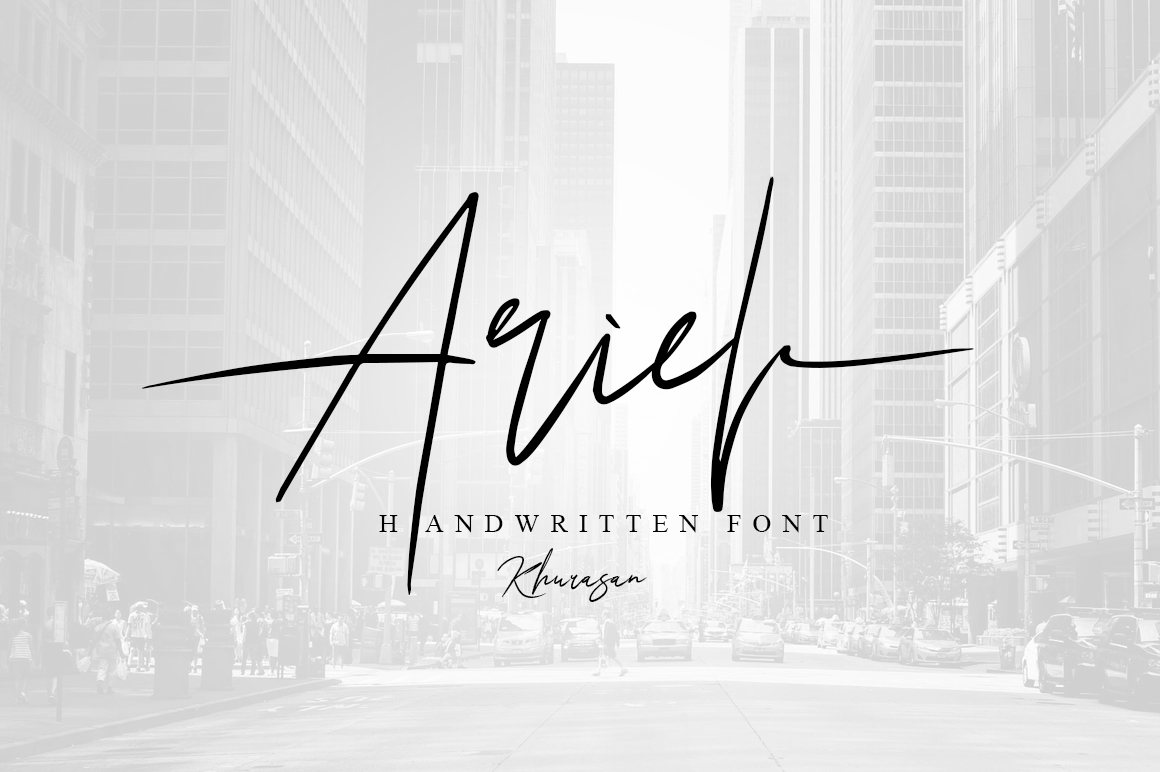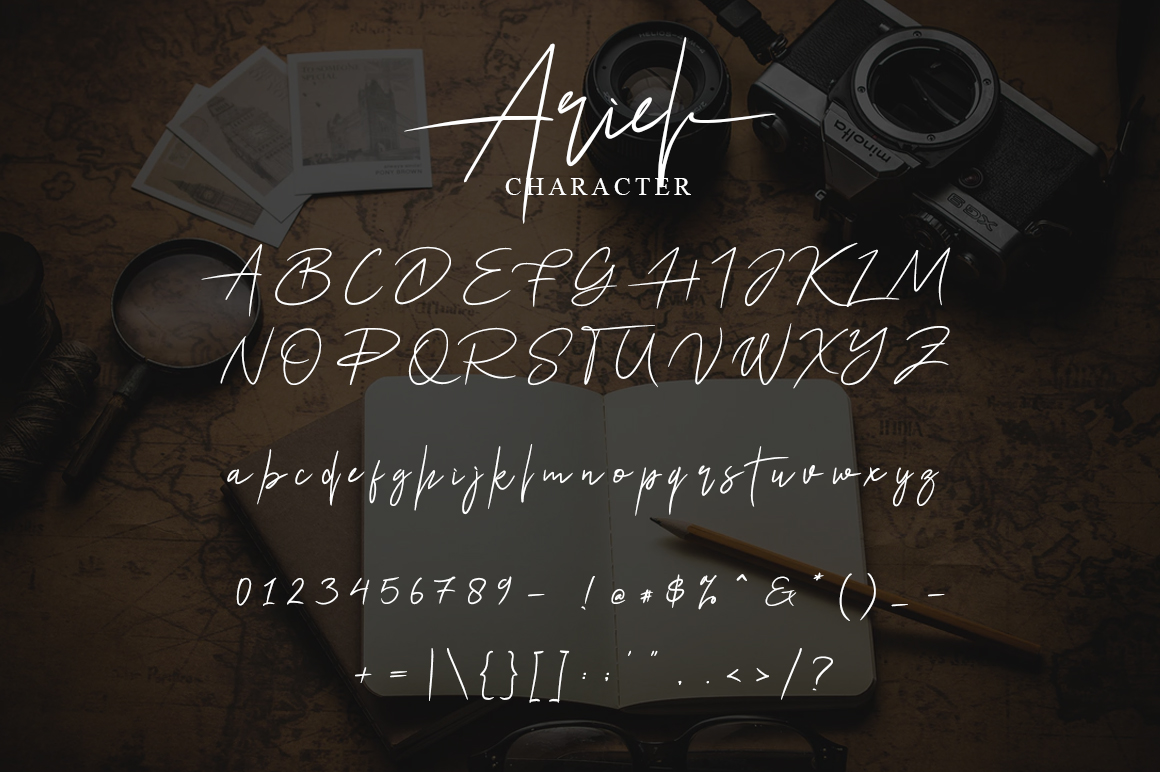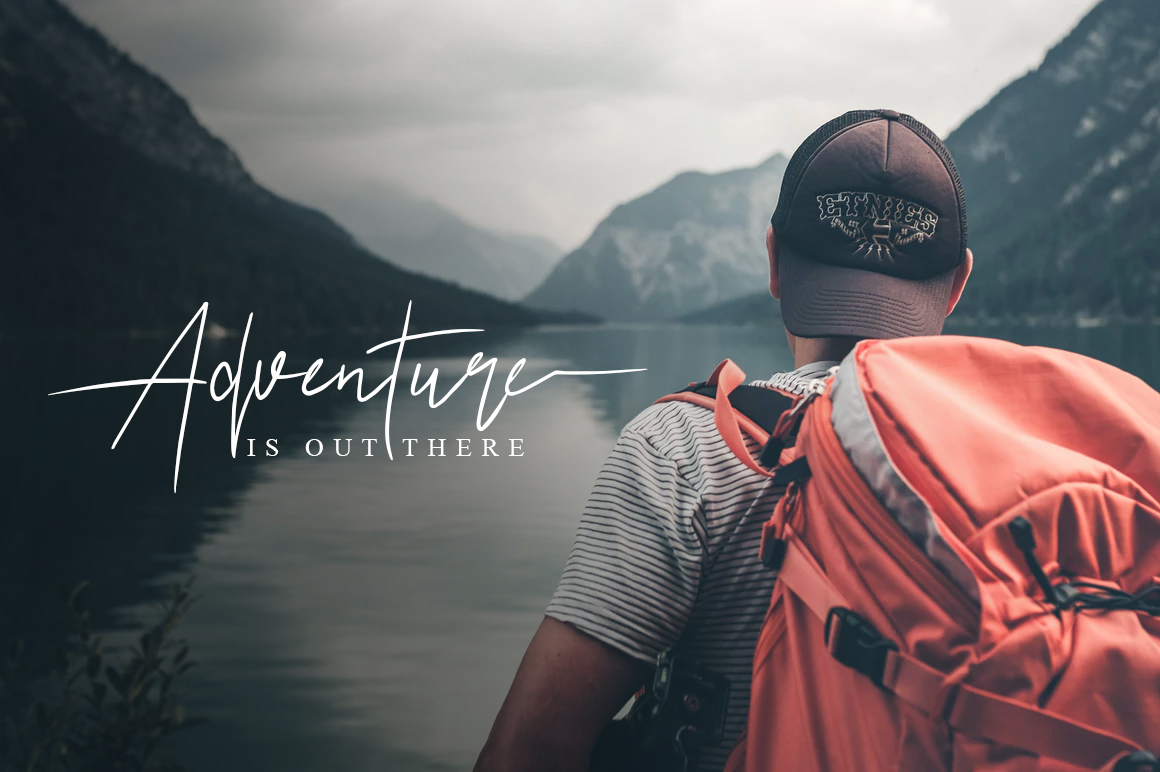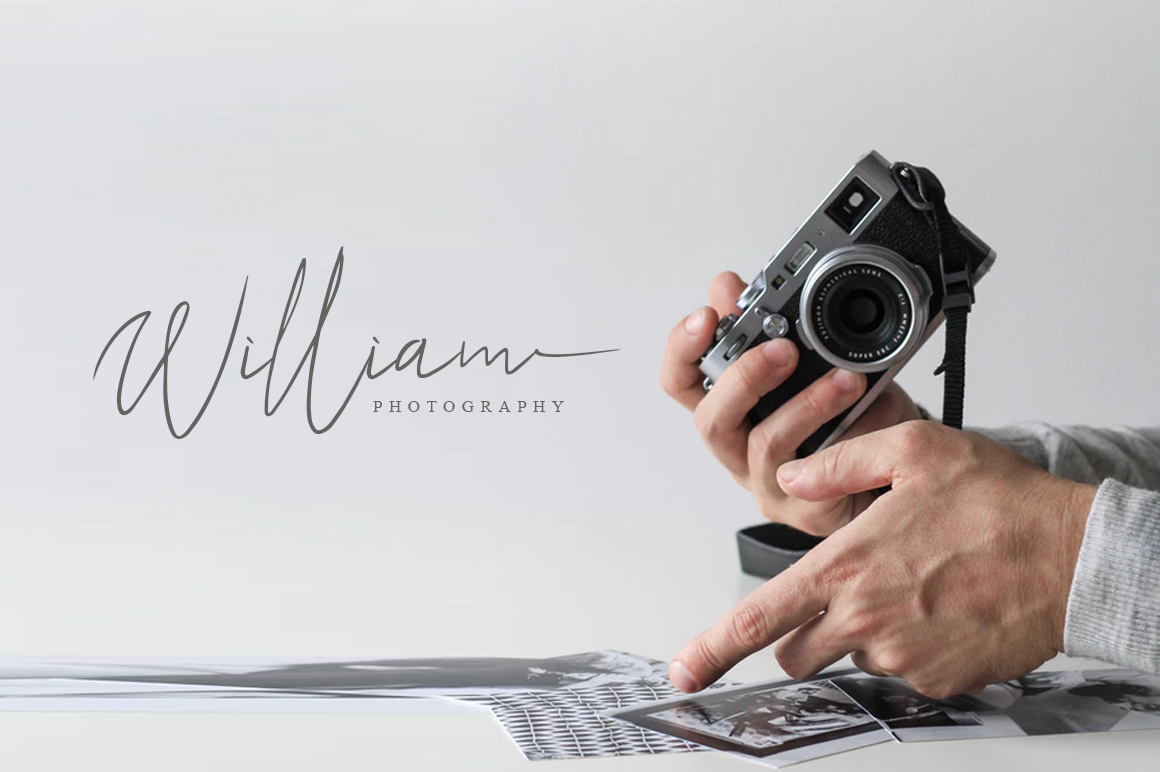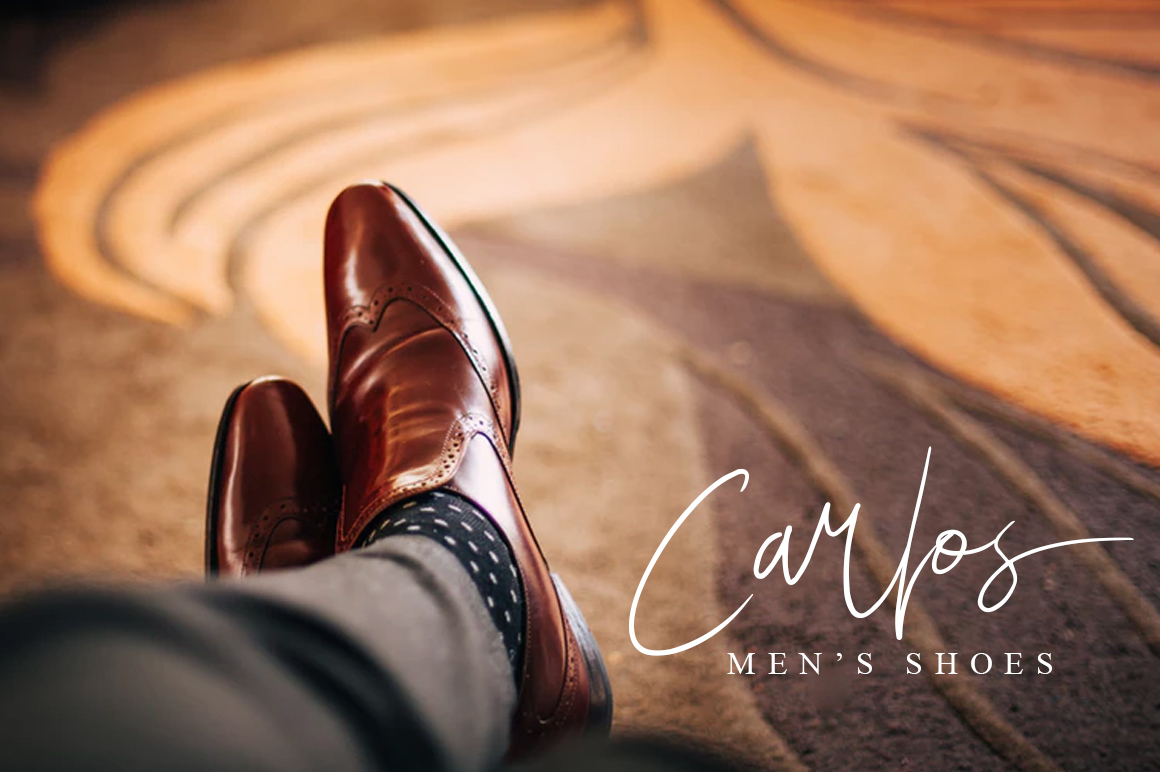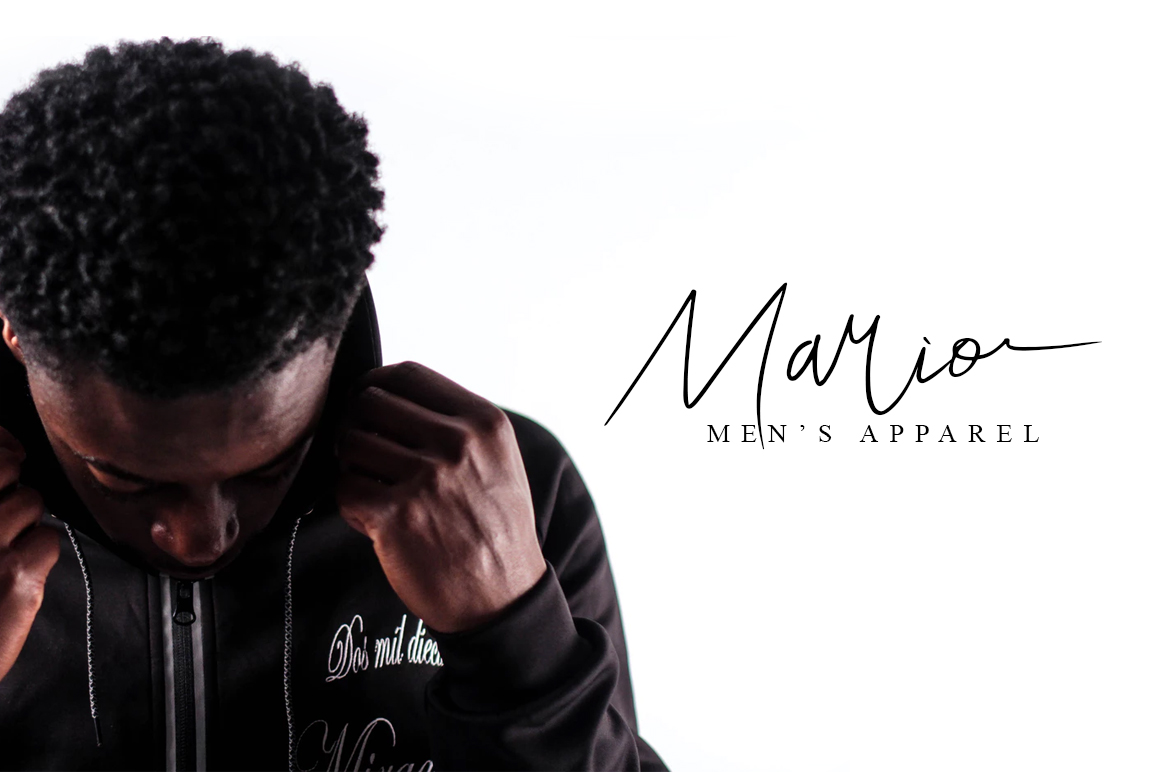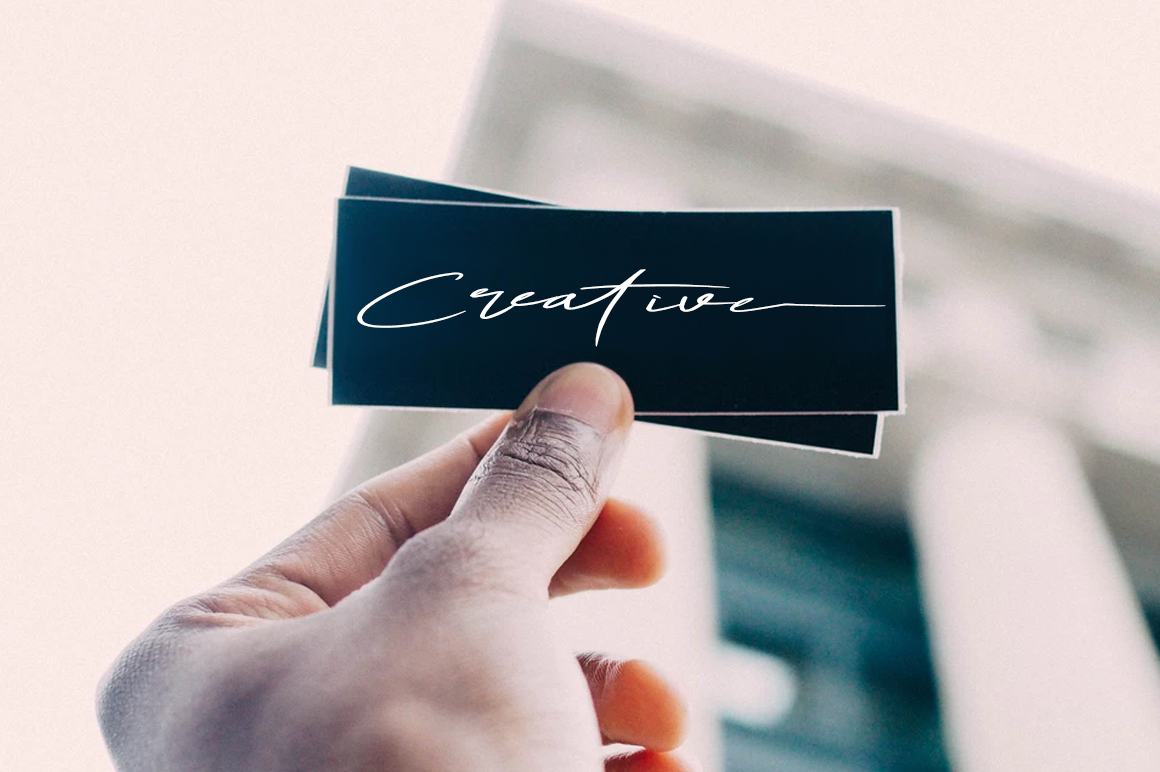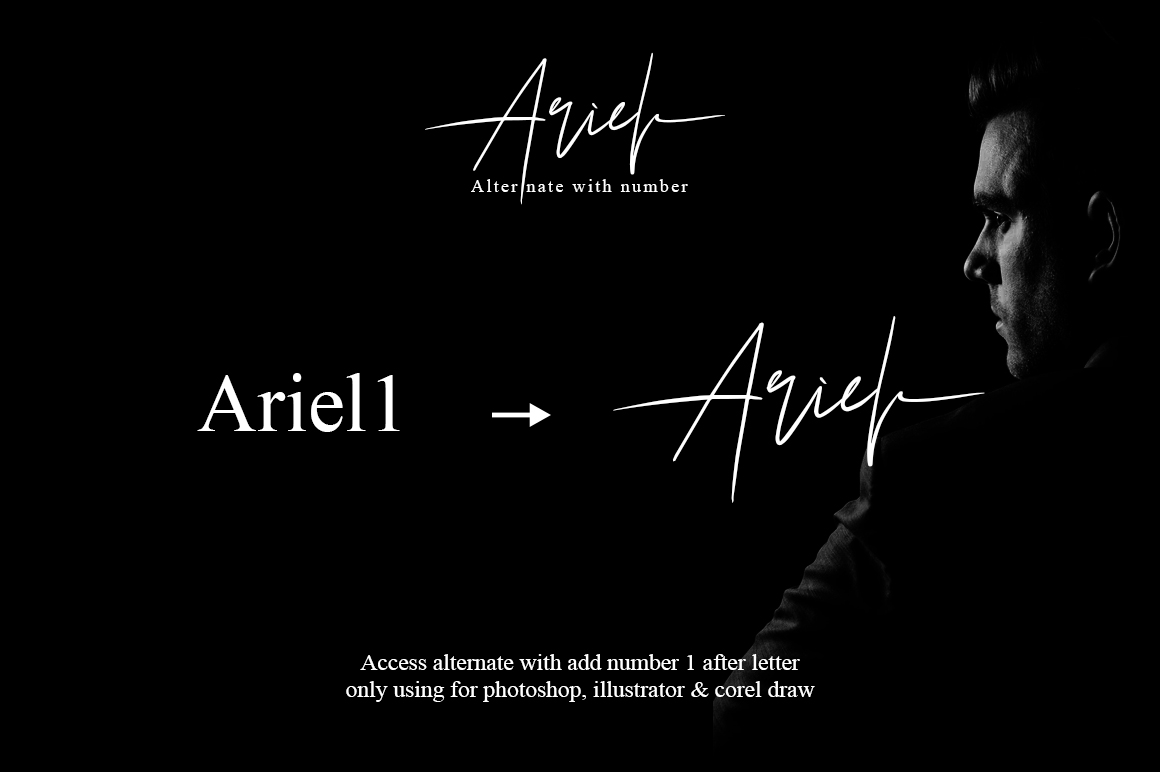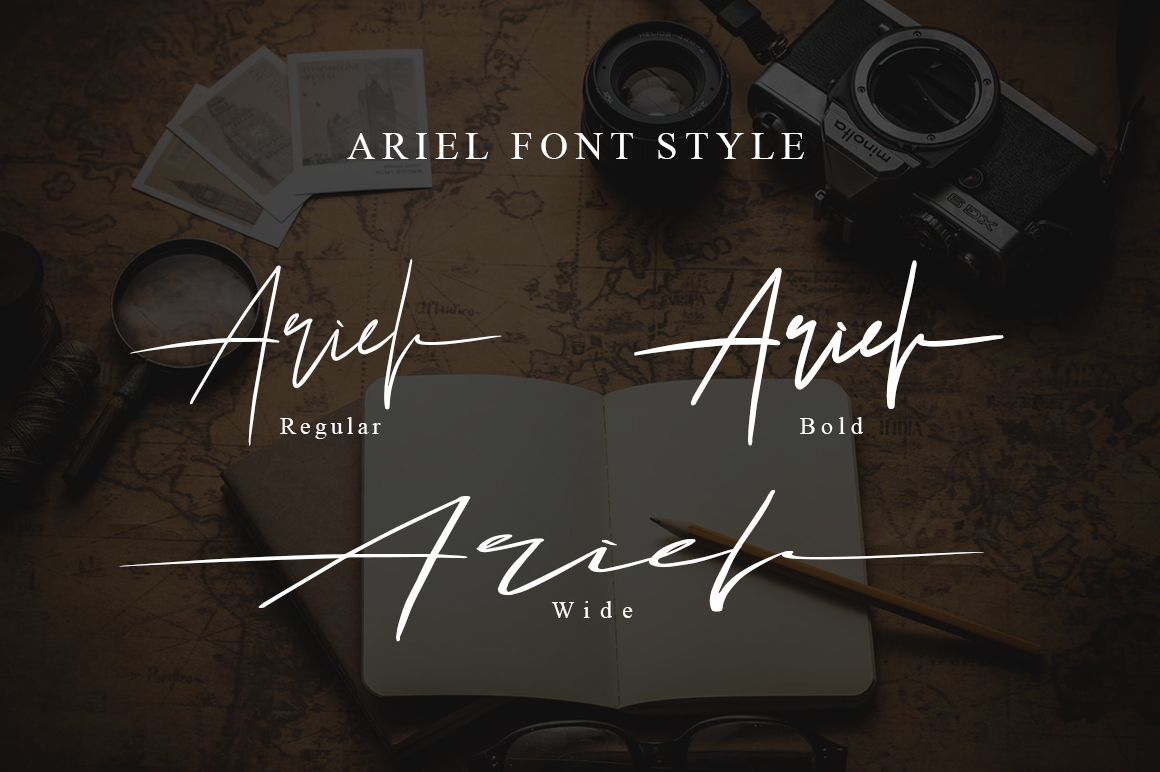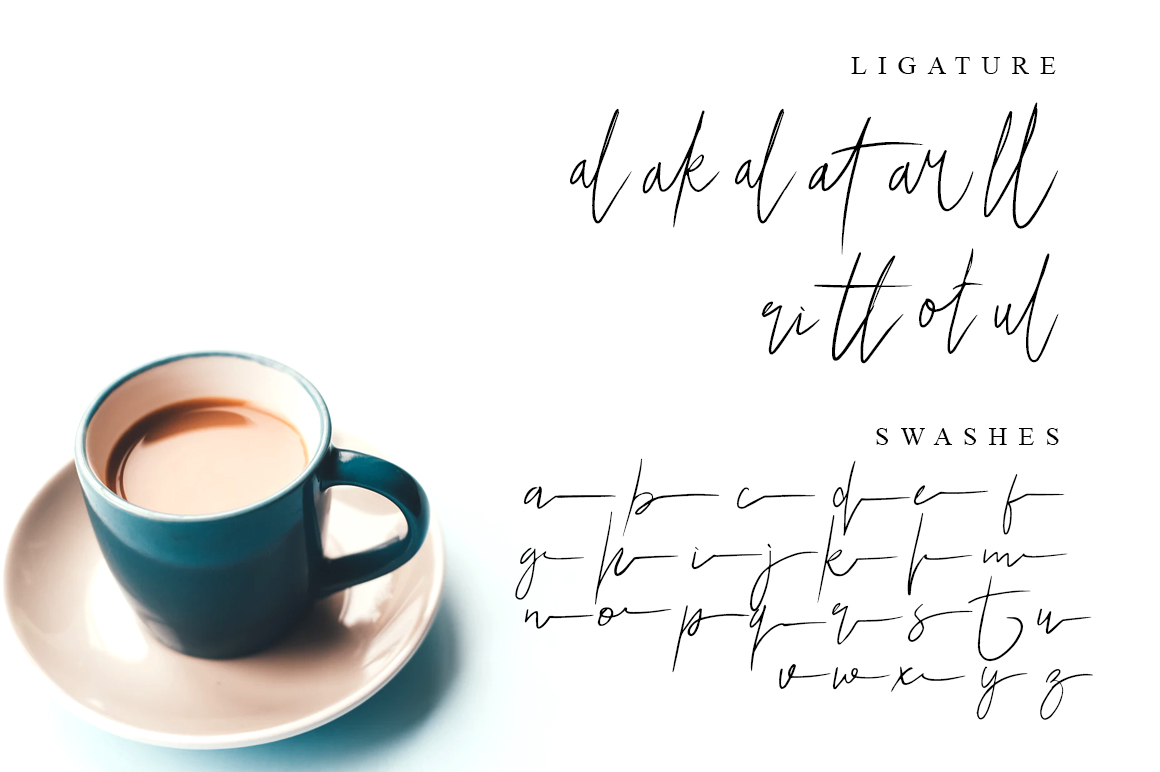
Arial Font
About Arial Font
Arial is a beautiful and simple signature font, perfect for a wide range of uses! This font is a great signature style that can give your designs a friendly yet sleek flair.